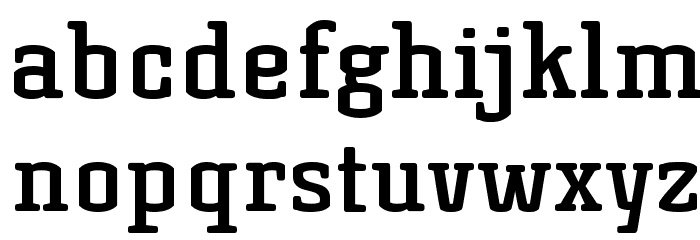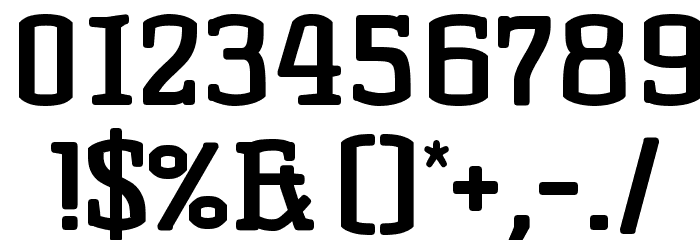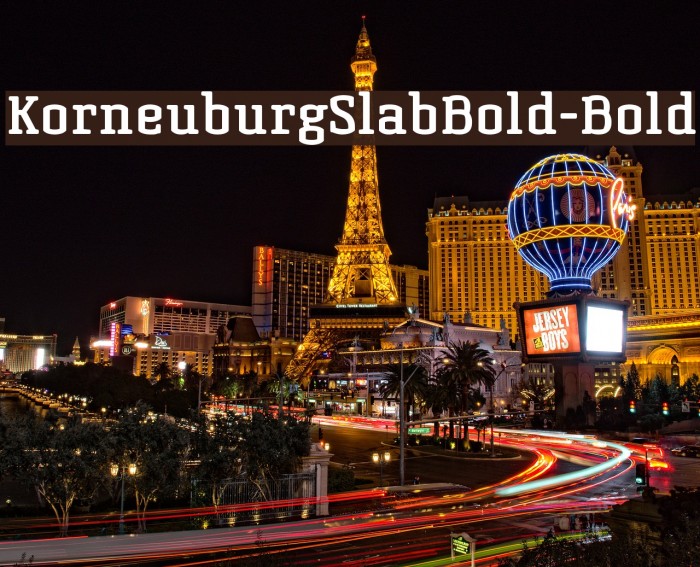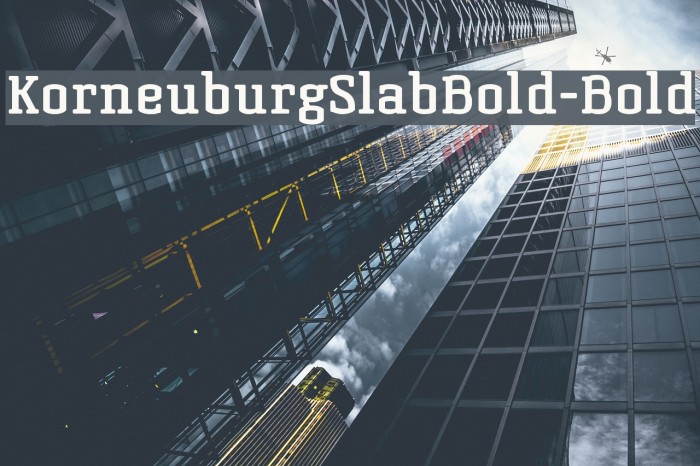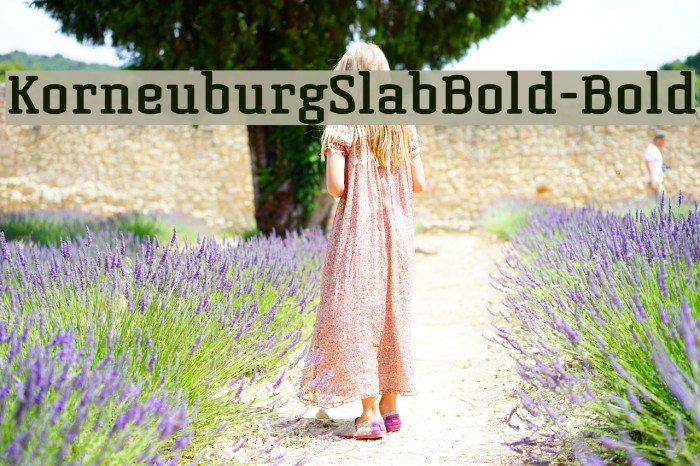
KorneuburgSlabBold-Bold Font
This font features a robust and bold slab serif style, characterized by thick, block-like serifs that give it a strong and commanding presence. The uppercase and lowercase letters maintain a consistent weight, providing a uniform appearance across the typeface. The numerals are equally bold, ensuring readability and impact. Special characters are clearly defined, adding versatility to the font's usage. The overall design is modern yet retains a classic touch, making it suitable for a variety of applications where a bold statement is desired.
A bold slab serif font with strong, block-like serifs and a modern yet classic style.
- Proposed Projects: Ideal for headlines, posters, branding, and any project requiring a strong visual impact.